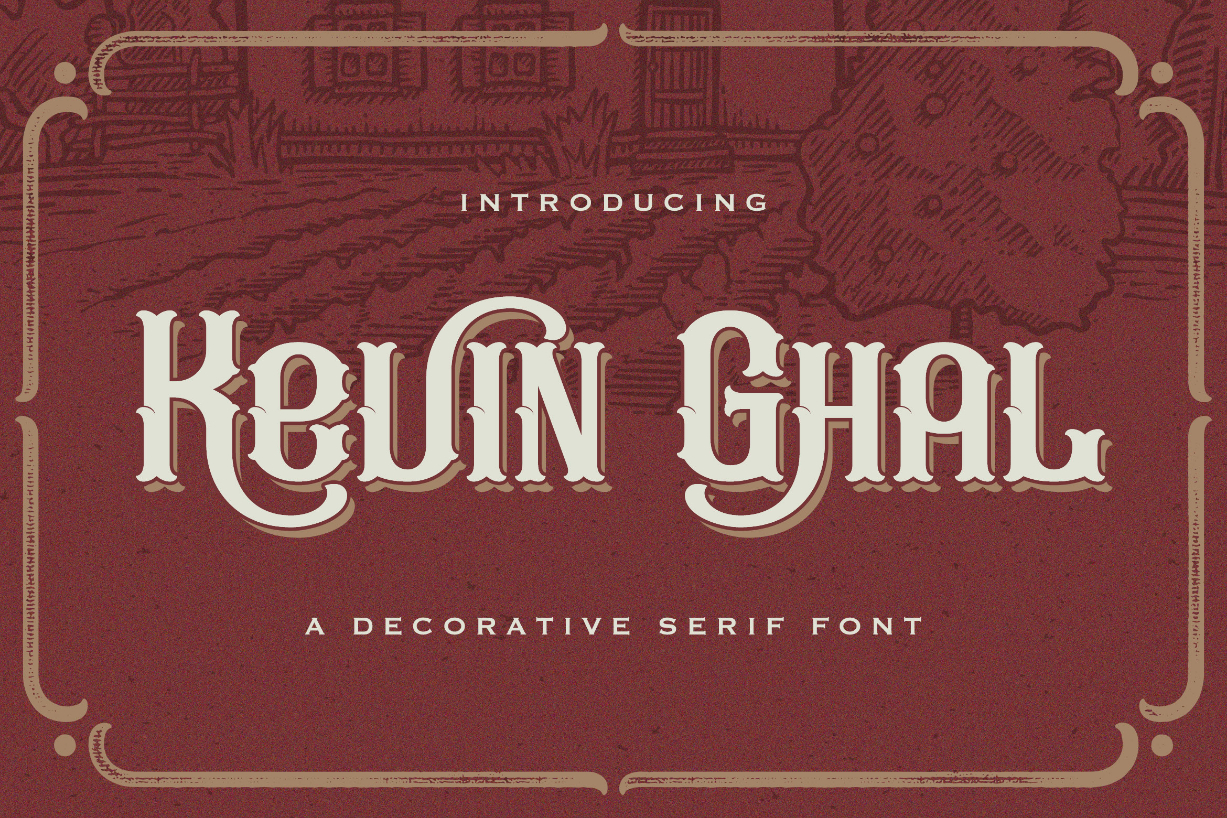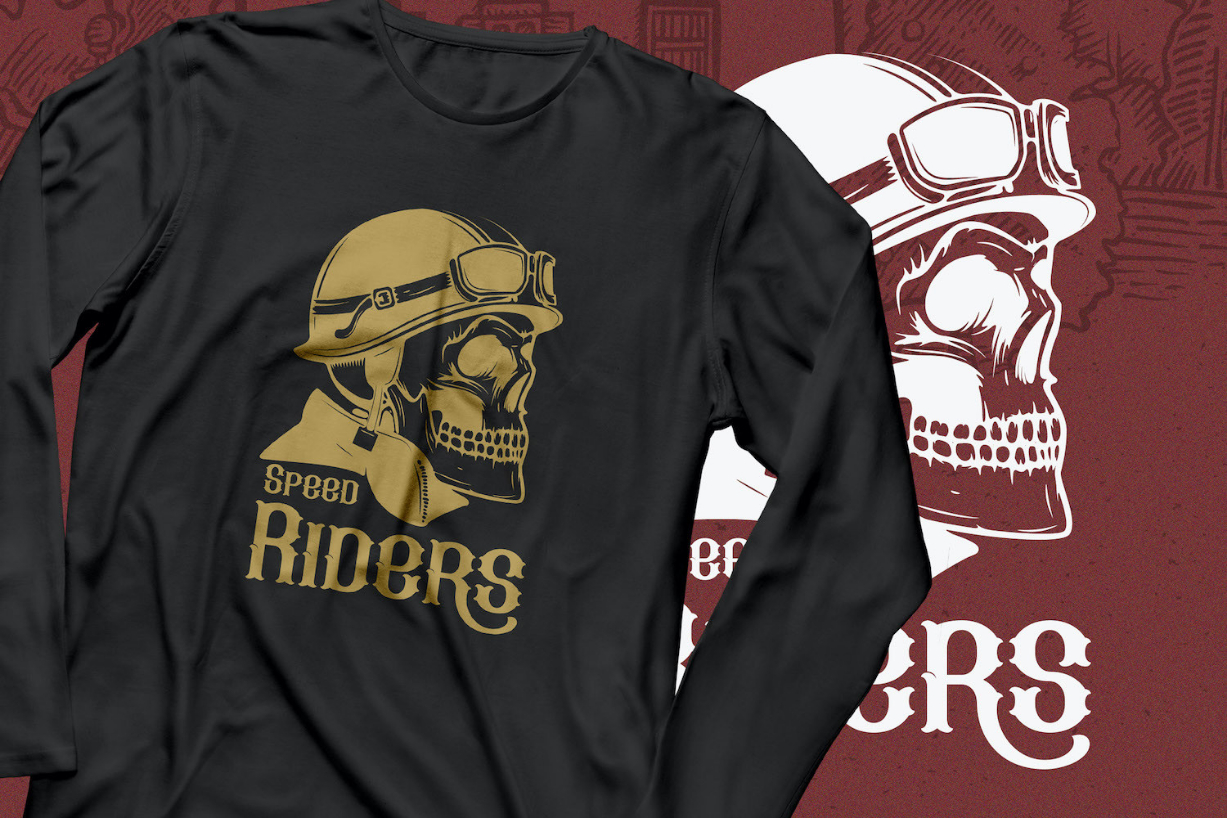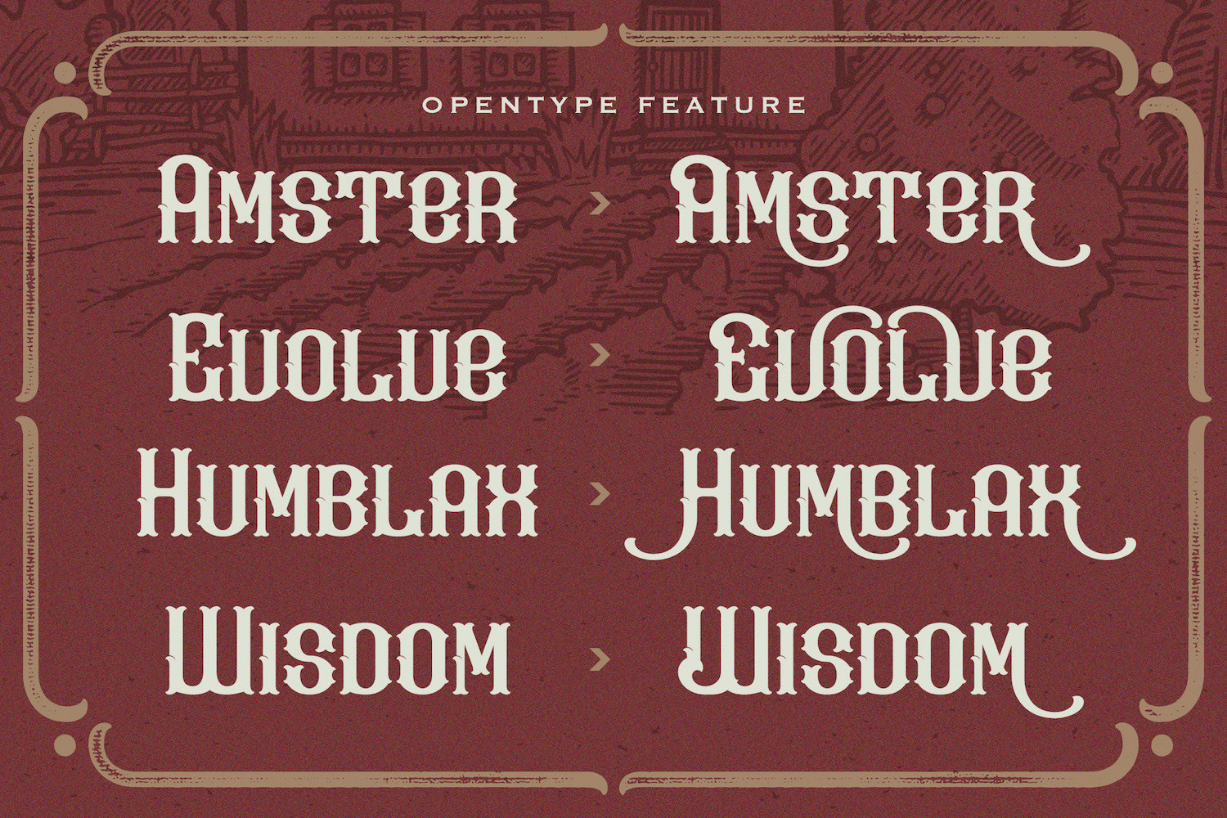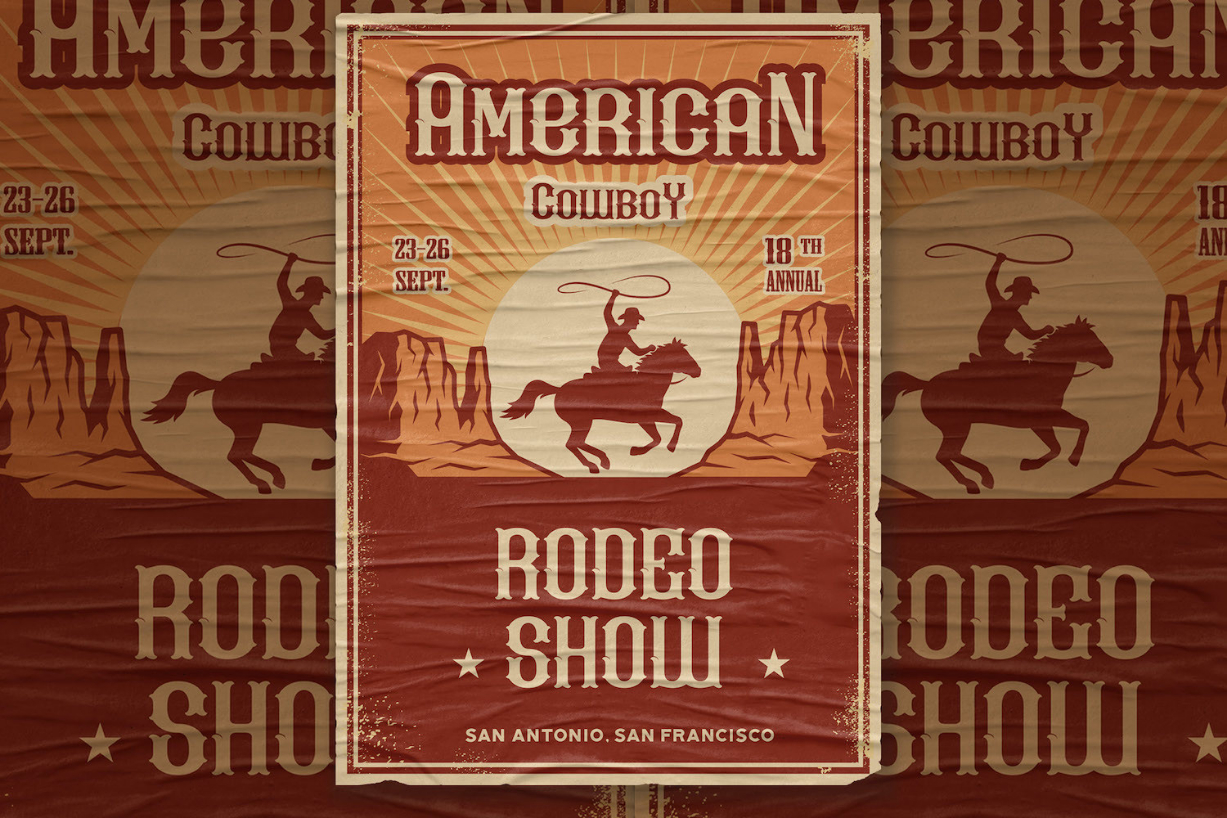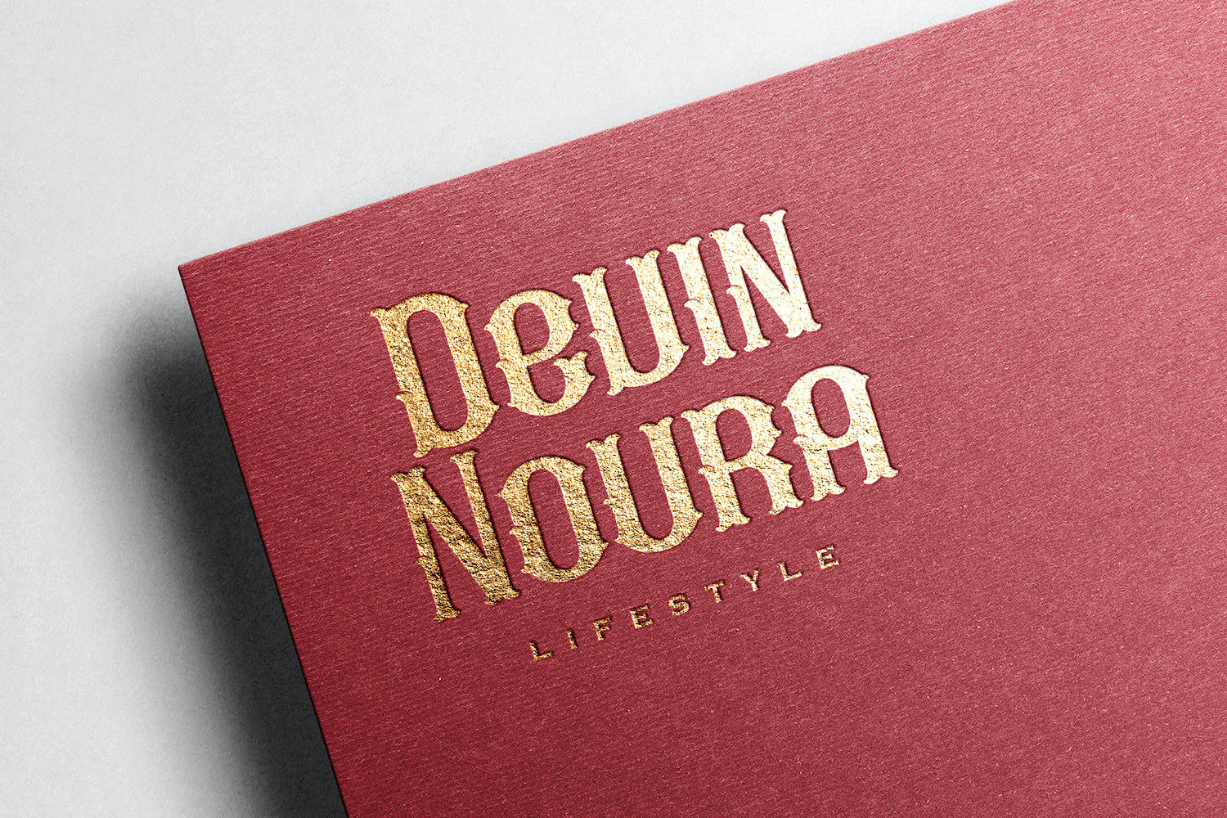
Kevin Ghal Font
About Kevin Ghal Font
Kevin Ghal is an incredibly bold and cool looking blackletter font. This font is ideal for writing legal documents, letters, or pretty much anything else that requires a distinct and assertive touch.